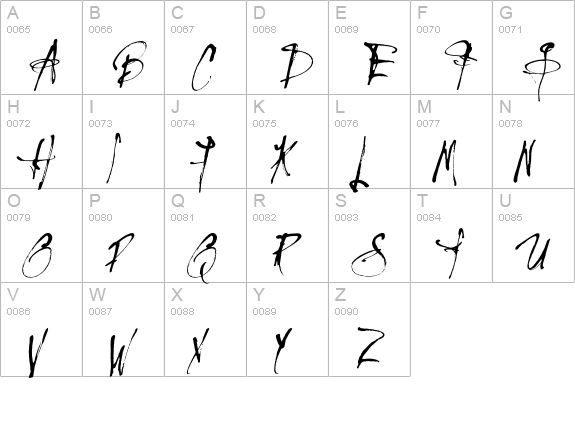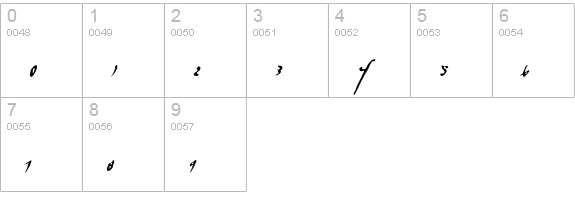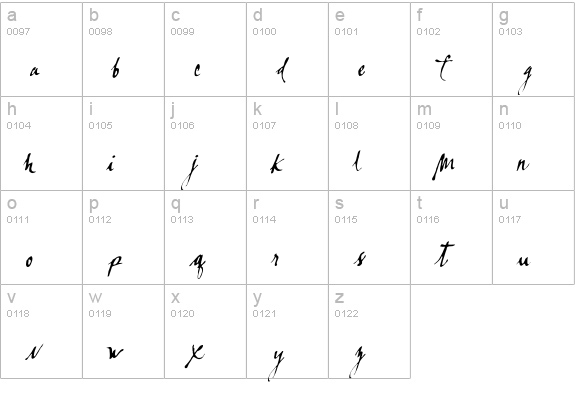
LassigueDMato Font Details
Introducing LassigueDMato, a stunning font that effortlessly combines elegance and modernity. With its sleek lines and sophisticated curves, this font is sure to make a lasting impression on any design project. LassigueDMato stands out from the crowd with its unique and timeless appeal. Its versatile nature allows it to be used in a wide range of applications, from branding and advertising to editorial design and beyond. Whether you're crafting a logo, designing a website, or creating a captivating poster, this font will elevate your work to new heights. What sets LassigueDMato apart is its exceptional attention to detail. Each letter has been meticulously crafted to ensure a seamless flow and perfect balance. The result is a font that exudes professionalism and refinement, making it the ideal choice for any project that requires a touch of sophistication. But what makes LassigueDMato even more desirable is the fact that it is freely available to download at FontsMarket.com. Yes, you read that right - this extraordinary font can be yours without any cost. Now you can enhance your designs without breaking the bank. So why wait? Download LassigueDMato today and experience the beauty of this remarkable font for yourself. Whether you're a seasoned designer or just starting out, this font will undoubtedly become a valuable addition to your typographic toolbox. Don't miss out on the opportunity to elevate your work and leave a lasting impression - get LassigueDMato now and let your creativity soar.